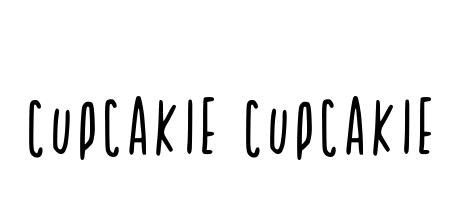
Cupcakie
Cupcakie: This playful handwritten font mimics a child's scrawl. Its slightly uneven lines and inconsistent letter heights give it a charming, homemade feel. The letters are rounded and slightly condensed, adding to its informal, friendly character, perfect for baking-themed projects.